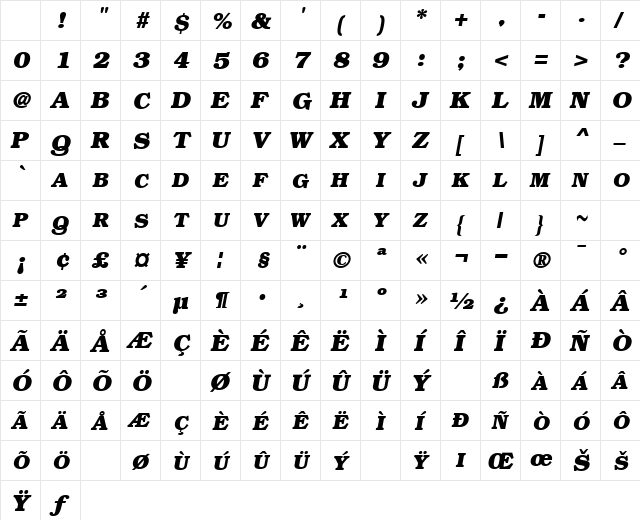
Complete BookExpert Bold-Oblique glyph index. Displaying only characters natively supported by BookExpert Bold-Oblique font.
BookExpert is a composed and adaptable typeface that performs quietly and consistently across a wide range of design contexts. The slanted form adds forward momentum and visual energy. Its bold stroke weight gives it real presence on the page.